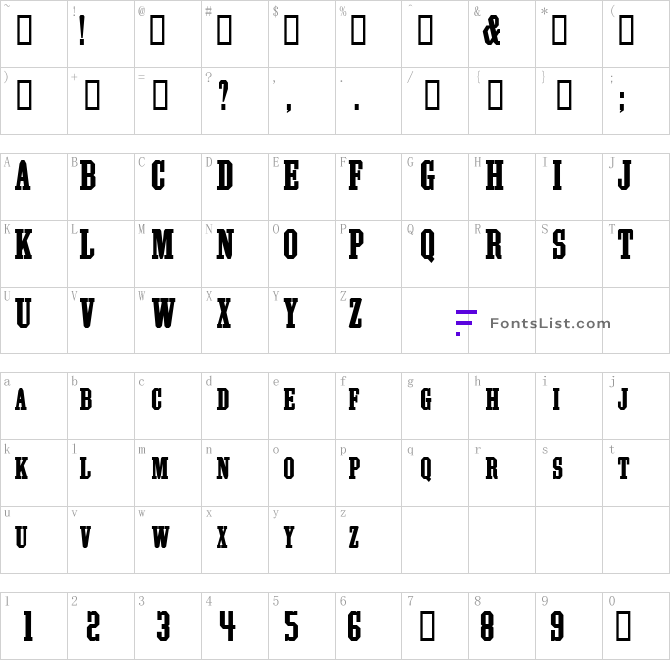
- Font Name:Athletic Supporter
Athletic-Supporter-copy-2-.ttf is a very beautiful artistic font, Athletic-Supporter-copy-2-.ttf is widely used in the design and printing of various books and pictures,Athletic-Supporter-copy-2-.ttf has a strong visual impact,Athletic-Supporter-copy-2-.ttf is a commonly used font in newspapers, magazines and books, and is used in posters, e-commerce Poster design, store design, logo design, font design and other fields.Athletic-Supporter-copy-2-.